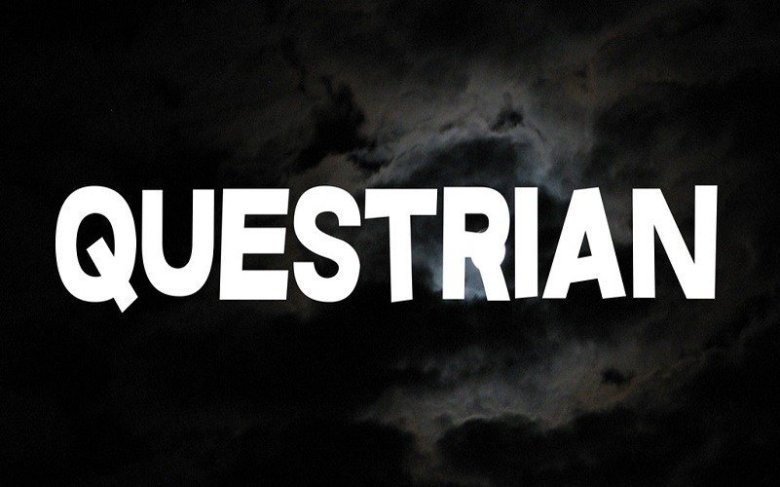
Questrian 3 Sans Serif Font
Questrian 3 Sans Font is a strong and elegant typeface display. Inspired by the style of design that is currently popular, and this is the answer to all the needs of every idea that you will pour in this modern era, with a thick and solid style in each letter as if this font has a soul in it.